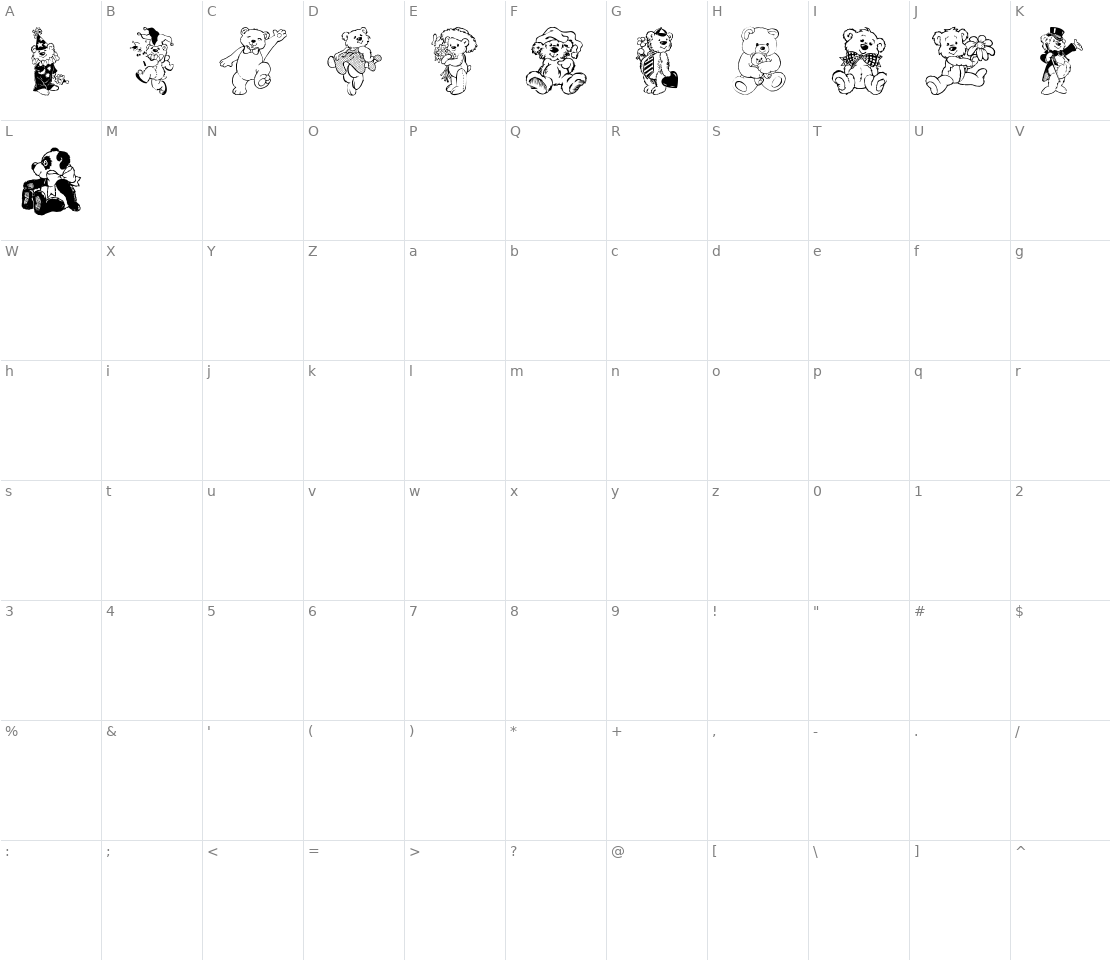
BearBats
by GorillaBlu
BearBats is a dingbat font from GorillaBlu made up entirely of bear and teddy bear illustrations, ranging from cute and cartoonish to whimsical. The symbols have a playful, hand-drawn quality that makes them a natural fit for children's projects, greeting cards, and anywhere you need a little bear-themed decoration without drawing one yourself.